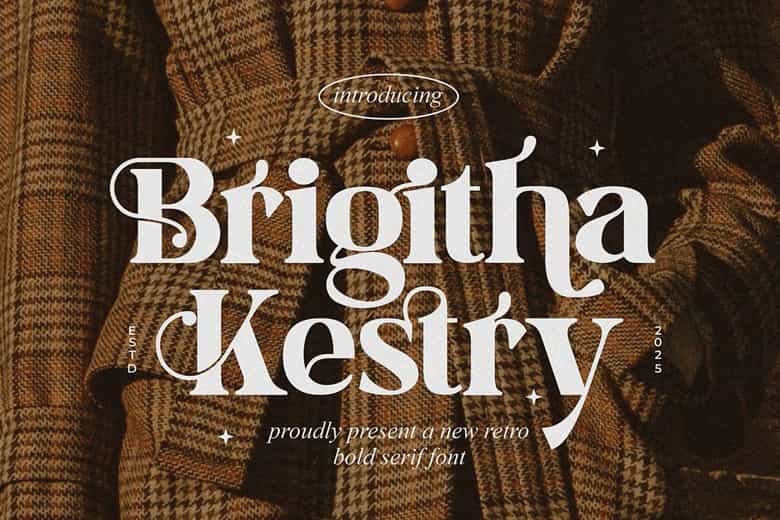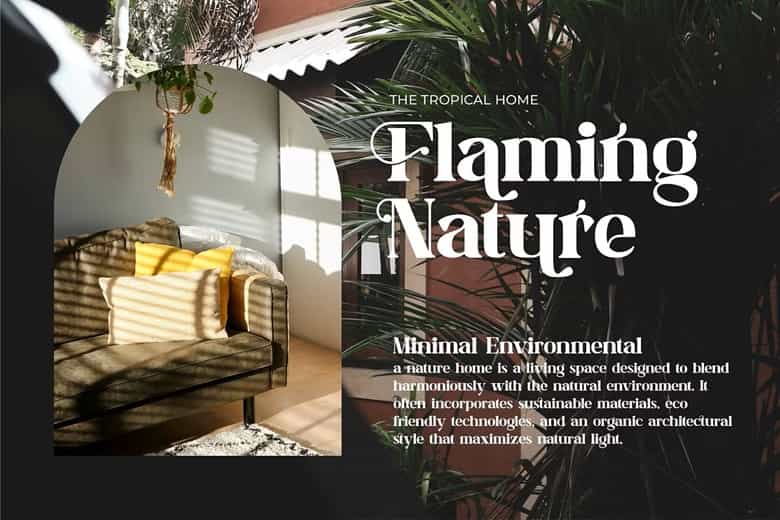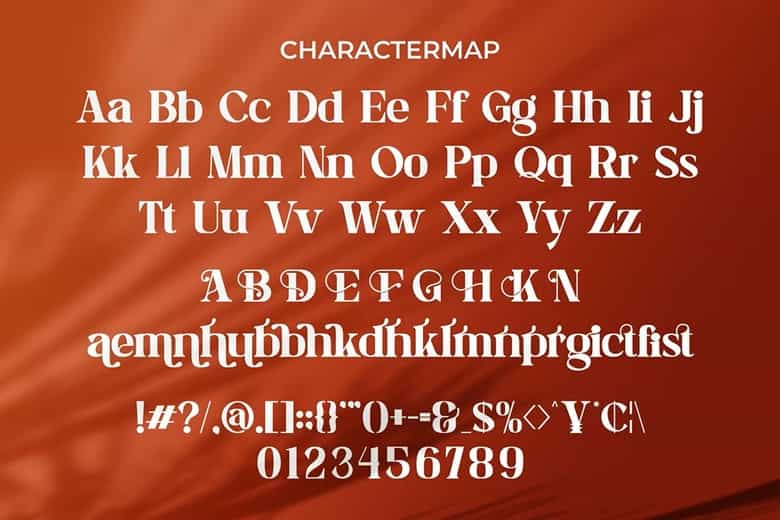
Brigitha Kestry is popular for being ancient, stylish, bouncy and cute style serif typeface. It also has a characteristic of a related theme that is wood. It is suitable for invitations cards designs, corporate logos, movie titles, film names, business cards, book titles, brand names, and lots of other designs.